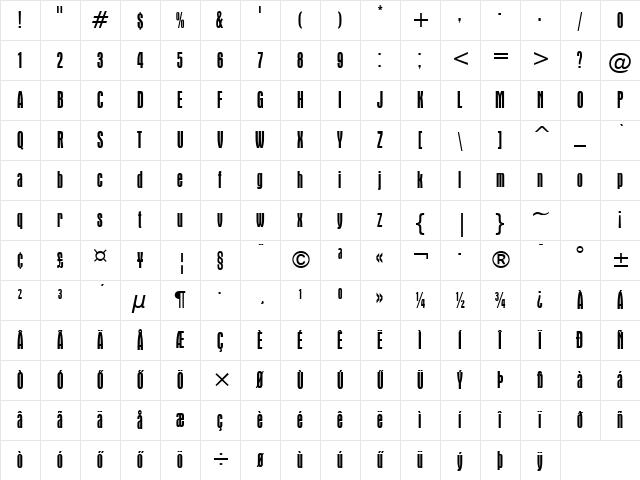
Hu_Auforcon is a composed and adaptable typeface that performs quietly and consistently across a wide range of design contexts.
Pro Tip: Use Hu_Auforcon in both headline and body roles to test its range before committing to a single application.